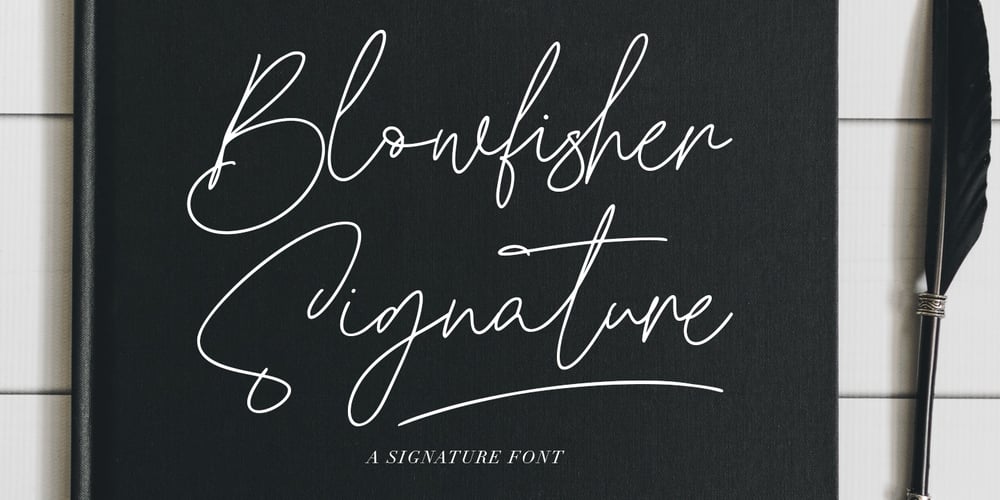
Blowfisher Font Family was designed by Gilang Maulana and published by Maulana Creative. Blowfisher contains 1 styles and family package options. Blowfisher is a signature script font it’s thin monoline and clean stroke with fun character. It has Opentype features ligature rich to give you an extra creative work. Blowfisher signature support multilingual more than 100+ language. This font is good for logo design, Social media, Movie Titles, Books Titles, a short text even a long text letter and good for your secondary text font with sans or serif. Make a stunning work with Blowfisher signature font.Cheers, MaulanaCreative